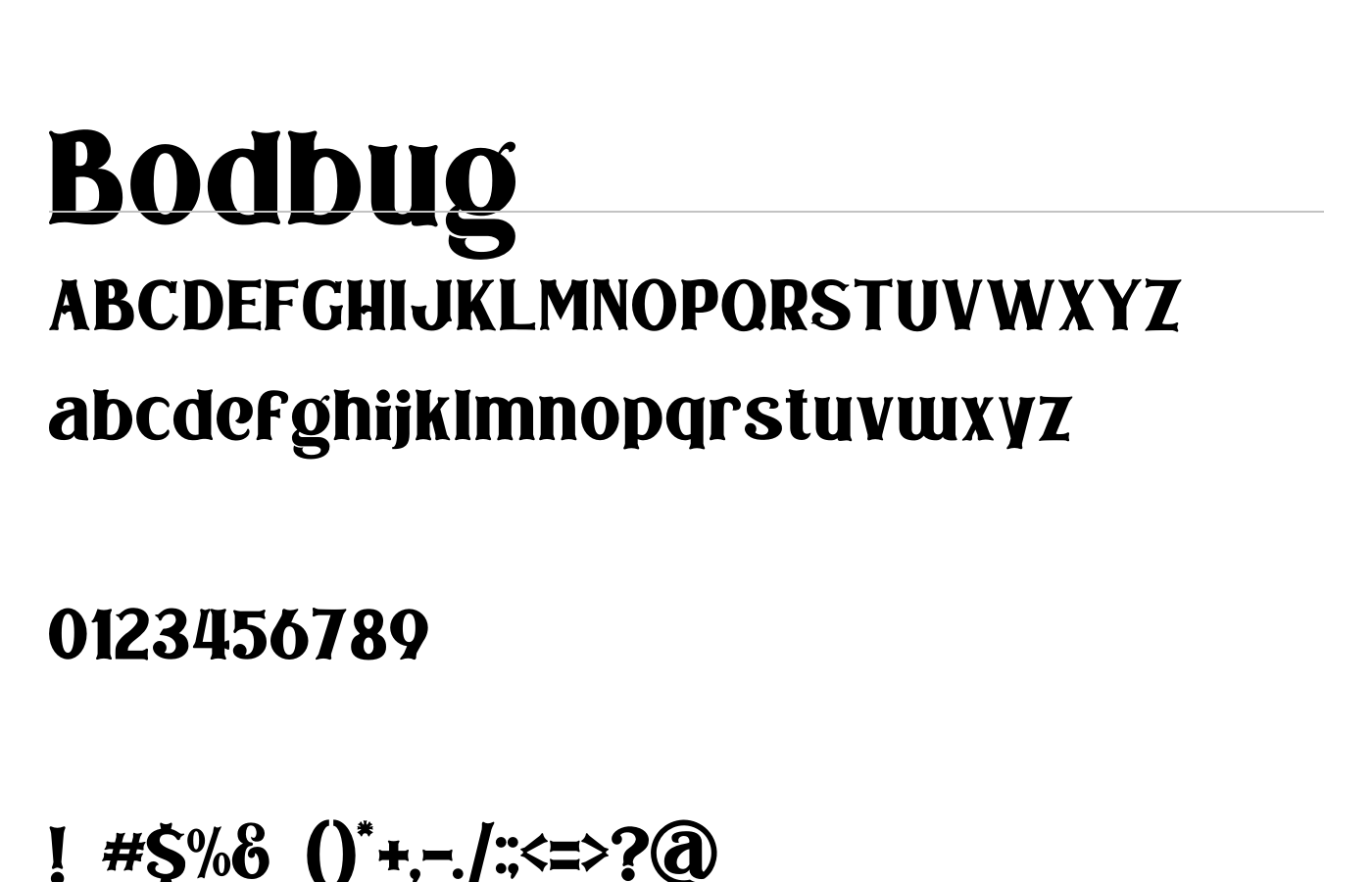
Bodbug is a distinctive serif font with a vintage, almost whimsical character, featuring strong weight and moderately condensed letterforms that create a bold visual impact. Its sharp, slightly irregular serifs and unique letter shapes give it a handcrafted, rustic feel, making it perfect for designs that want to convey personality and old-world charm. This font works well in headlines, logos, and packaging where a striking, memorable presence is desired.
| Font family | Bodbug Font |
| Designer | Muhammad Romzul Khoir |